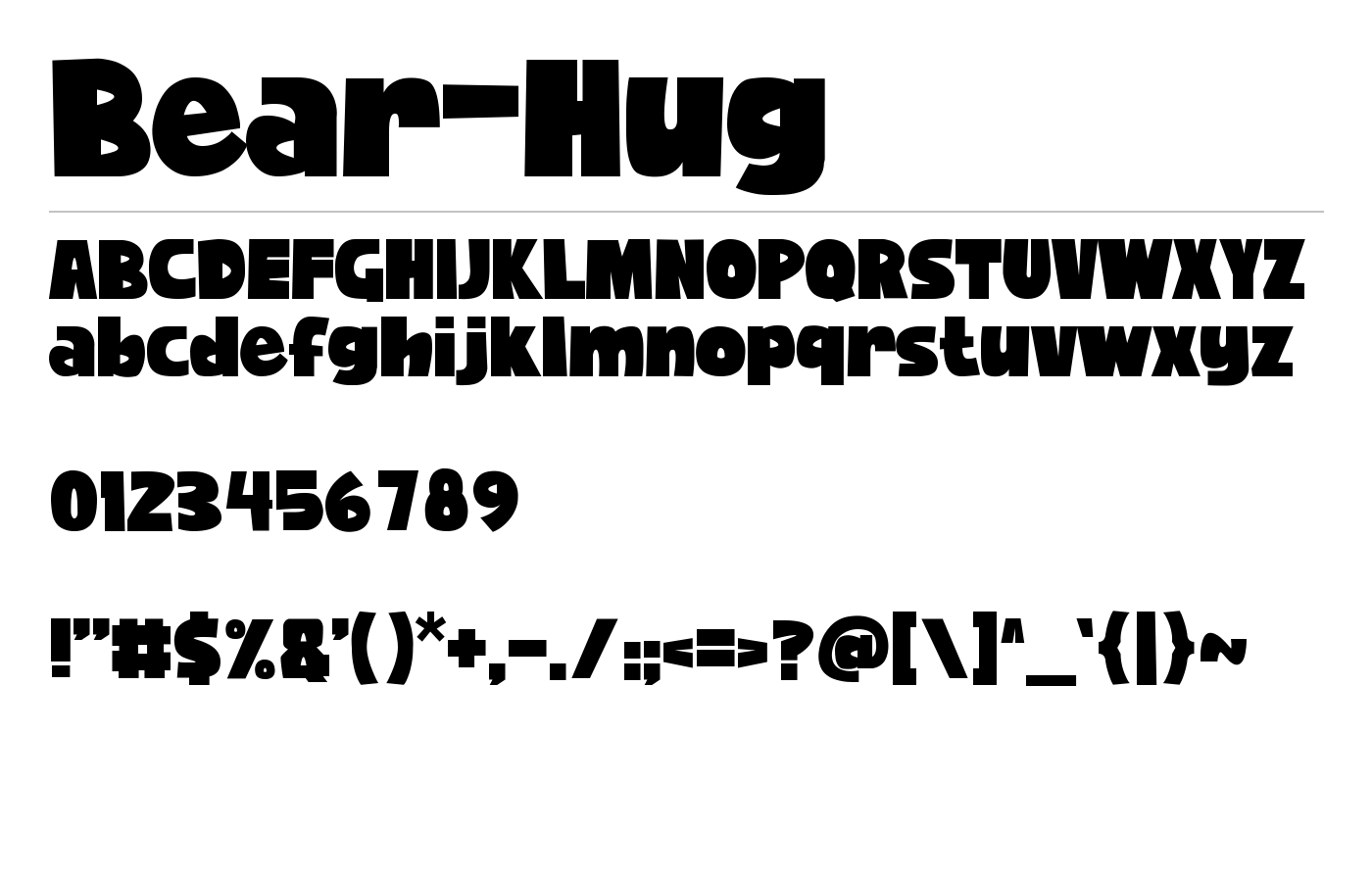
Bear-Hug is a bold, playful sans serif font with wide, chunky letterforms and a slightly irregular, hand-crafted feel. Its heavy weight and strong presence make it perfect for eye-catching headlines, logos, and packaging where a fun and friendly vibe is desired. This font works well for brands aiming to convey warmth, approachability, and a touch of whimsy.
Bear-Hug Font